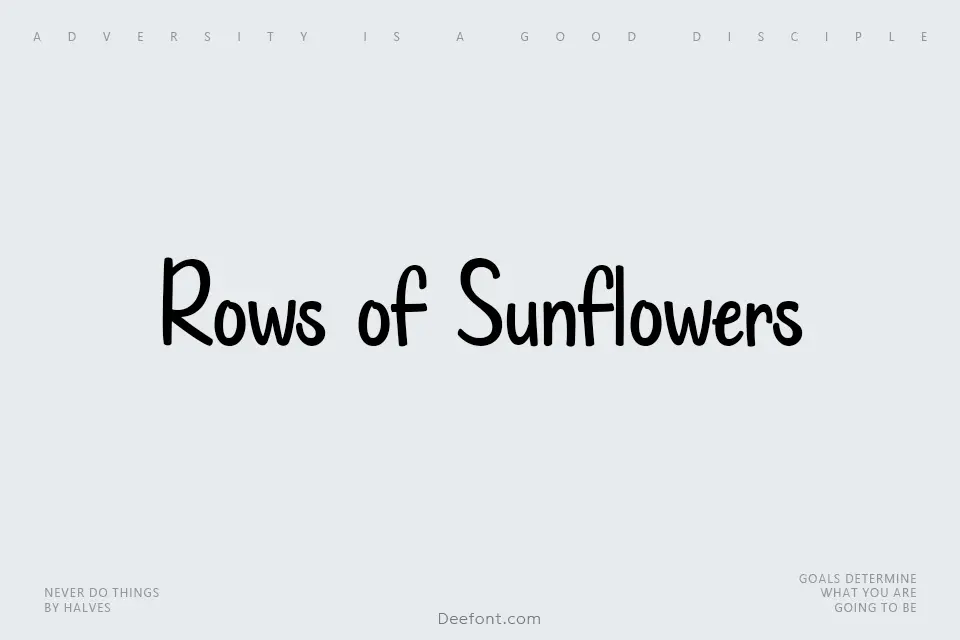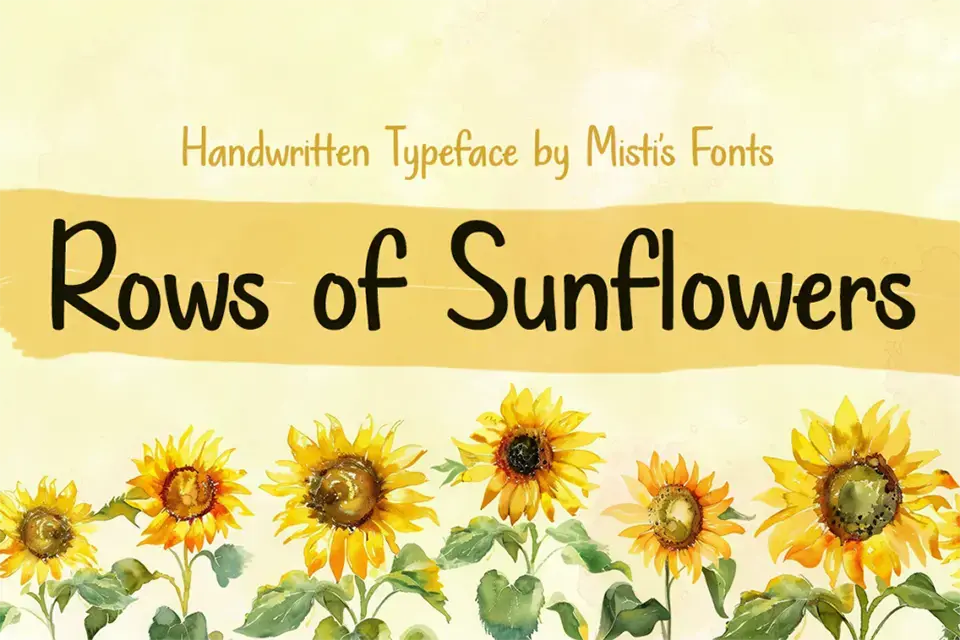
Rows of Sunflowers Font
Rows of Sunflowers is a delightfully warm and playful handwritten script font that brings cheerful personality to any creative project. Featuring natural, flowing letterforms with a friendly handwritten aesthetic, this typeface excels in invitations, greeting cards, logos, and social media graphics. The sunny charm and approachable style make it ideal for designs requiring warmth and character, from feminine branding to seasonal campaigns and creative display purposes.